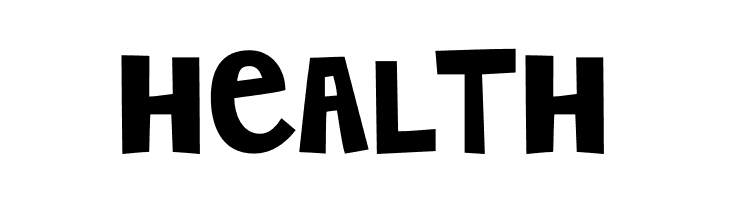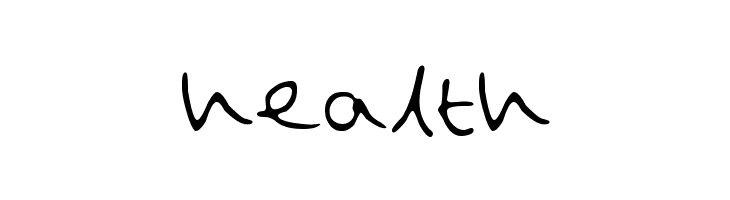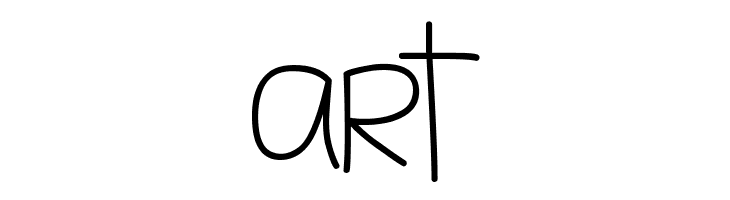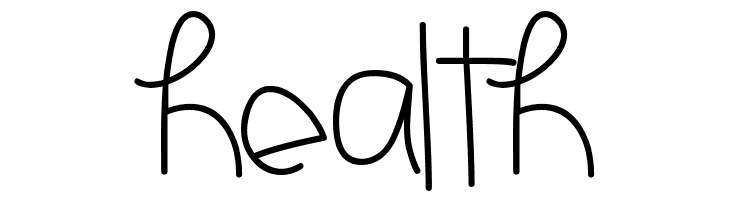
A whimsical, hand-drawn font with decorative stripes and curly lowercase letters.
A playful, hand-drawn font with bold, irregular strokes.
Hand-drawn decorative font with whimsical heart doodles.
A playful, hand-drawn font with bold, rounded characters.
A playful, casual handwritten font with irregular, whimsical strokes.
A whimsical, handwritten font with playful decorative elements.
A whimsical, handwritten font with curly, decorative strokes.
A playful, whimsical handwritten font with tall, narrow letters and irregular strokes.